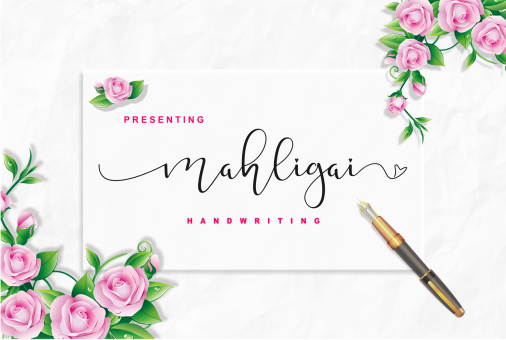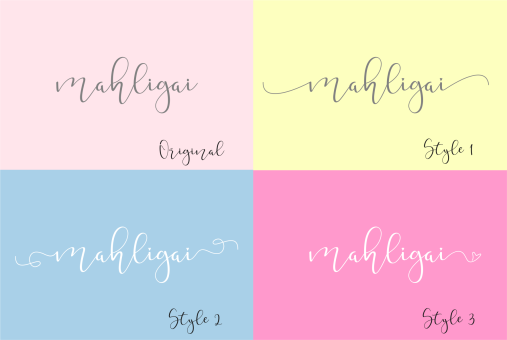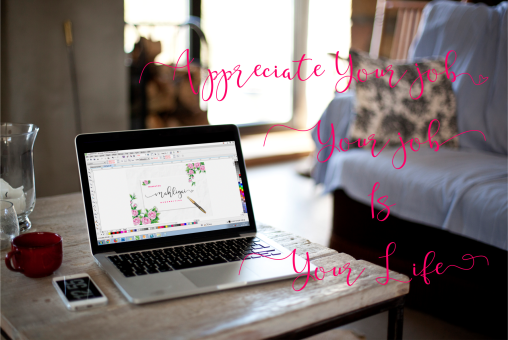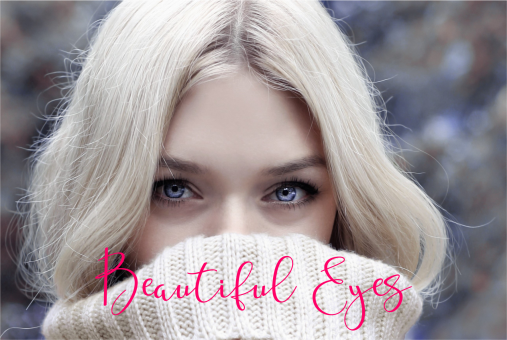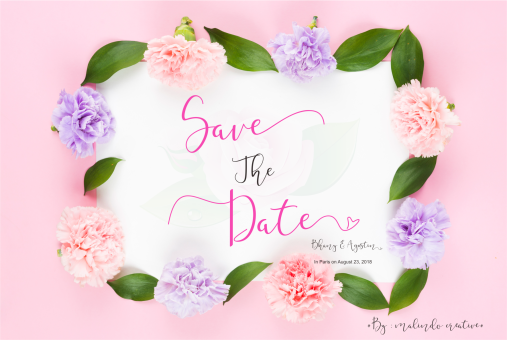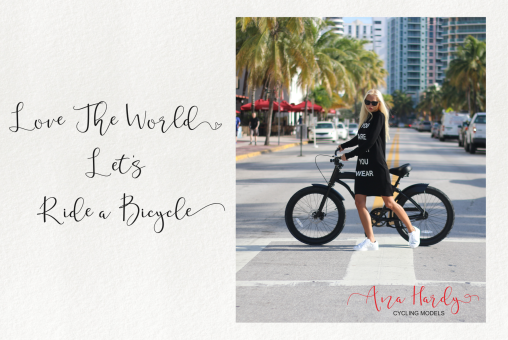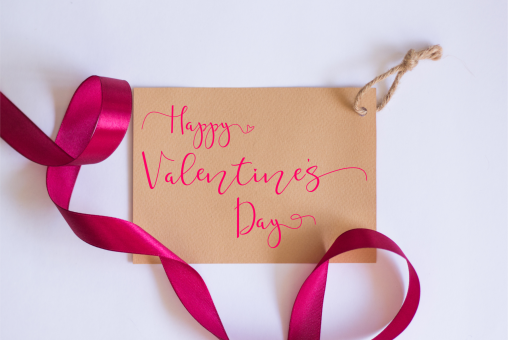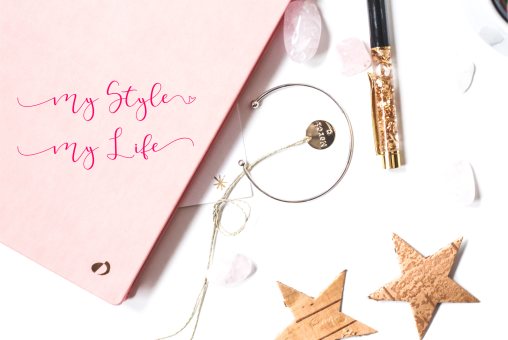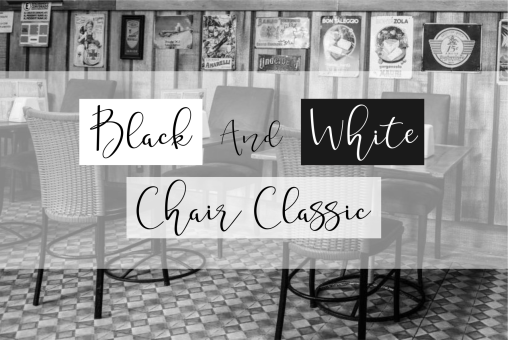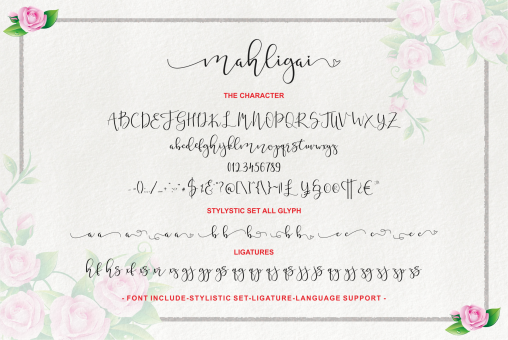
Mahligai
Introducing, Mahligai Is A Beautiful Handwriting, This Type Of Writing Is Irregular Between The Upper And Lower, And It Is A Smooth And Coarse Typeface, This Font Is Made To Meet All Types Of Desing And Printing, This Font Supports Language, It Is Suitable To make: banners, brochures, invitations, shirts, mugs, calendars, posters, and more, and it is expected that this font will be useful for all designers.
This Font Equipped:
-Uppercase
-Lowercase
-Figures & Punctuation
-Stylistic Alternatives
-Ligatures
-Language Support